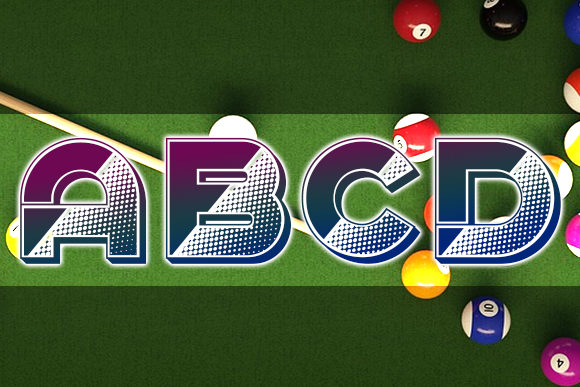
Introduction to Karambol Font
Karambol is an awesome display font that will fit perfectly on each of your designs.
Have fun with this beautiful font and explore its endless variations .
Karambol Font offers exceptional quality and versatility, making it a valuable addition to your design toolkit. Whether you’re creating for personal projects or commercial use, Karambol Font delivers professional results.